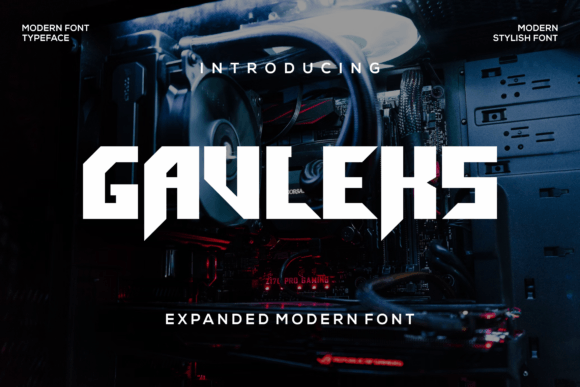
Gavlexs Font: The Ultimate Modern Font for Your Branding Projects
Are you looking for a font that can elevate your branding projects to the next level? Look no further than Gavlexs Font, a modern and bold display font that is perfect for creating stunning logos, t-shirt designs, and other creative products. In this article, we’ll take a closer look at Gavlexs Font and explore its features, benefits, and uses.
What is Gavlexs Font?
Gavlexs Font is a modern display font that is designed to make a statement. Its bold and authentic style makes it perfect for use in a variety of contexts, from logos and branding materials to t-shirt printing and creative products. This font is extraordinary in a variety of contexts, and its versatility makes it a great addition to any designer’s toolkit.
Key Features of Gavlexs Font
- Bold and Authentic Style: Gavlexs Font has a bold and authentic style that is perfect for making a statement.
- Modern Design: This font has a modern design that is perfect for creating stunning branding materials.
- Versatile: Gavlexs Font is versatile and can be used in a variety of contexts, from logos and branding materials to t-shirt printing and creative products.
- Easily Readable: Despite its bold style, Gavlexs Font is easily readable, making it perfect for use in a variety of applications.
Benefits of Using Gavlexs Font
There are many benefits to using Gavlexs Font in your branding projects. Here are just a few:
- Stand Out from the Crowd: Gavlexs Font is a unique and bold font that will help your branding materials stand out from the crowd.
- Professional Look and Feel: This font has a professional look and feel that is perfect for creating high-quality branding materials.
- Easily Customizable: Gavlexs Font is easily customizable, making it perfect for use in a variety of applications.
- Time-Saving: With Gavlexs Font, you can create stunning branding materials in no time, saving you time and effort.
Uses of Gavlexs Font
Gavlexs Font is a versatile font that can be used in a variety of contexts. Here are just a few examples:
- Logos and Branding Materials: Gavlexs Font is perfect for creating stunning logos and branding materials.
- T-Shirt Printing: This font is great for use in t-shirt printing, creating bold and eye-catching designs.
- Creative Products: Gavlexs Font can be used to create stunning creative products, such as posters, flyers, and brochures.
- Digital Media: This font can also be used in digital media, such as social media graphics and website headers.
Why Choose Gavlexs Font?
There are many reasons to choose Gavlexs Font for your branding projects. Here are just a few:
- Unique and Bold Style: Gavlexs Font has a unique and bold style that will help your branding materials stand out.
- High-Quality Design: This font has a high-quality design that is perfect for creating professional-looking branding materials.
- Easily Customizable: Gavlexs Font is easily customizable, making it perfect for use in a variety of applications.
In conclusion, Gavlexs Font is a modern and bold display font that is perfect for creating stunning branding materials. Its unique and authentic style makes it stand out from the crowd, and its versatility makes it a great addition to any designer’s toolkit. With its high-quality design, easily customizable features, and great value, Gavlexs Font is a great choice for any branding project.